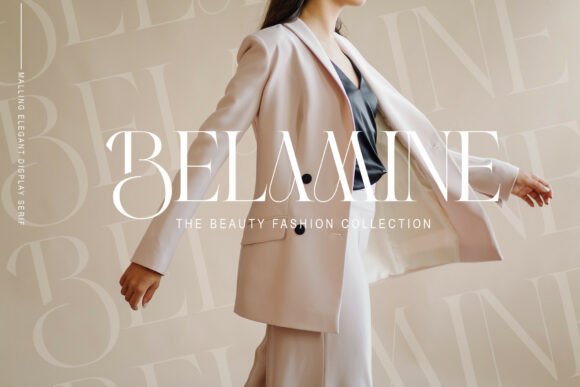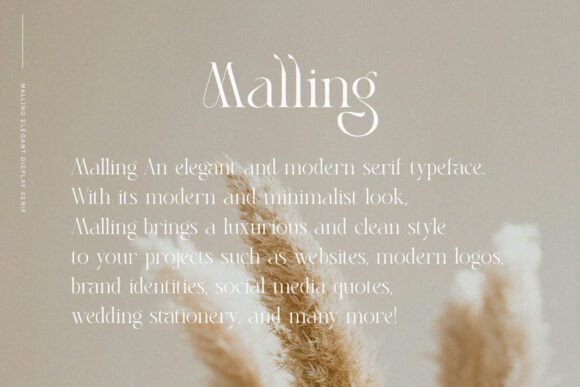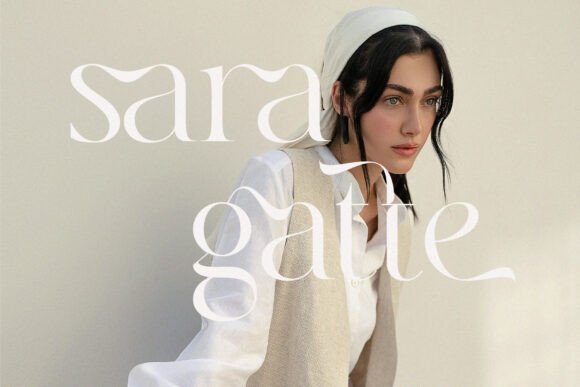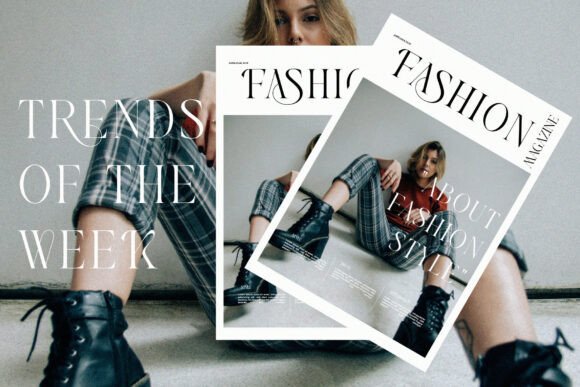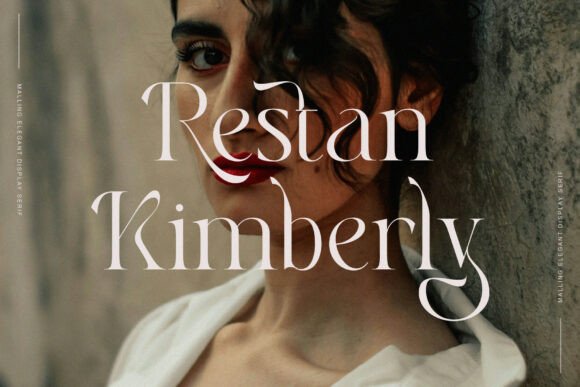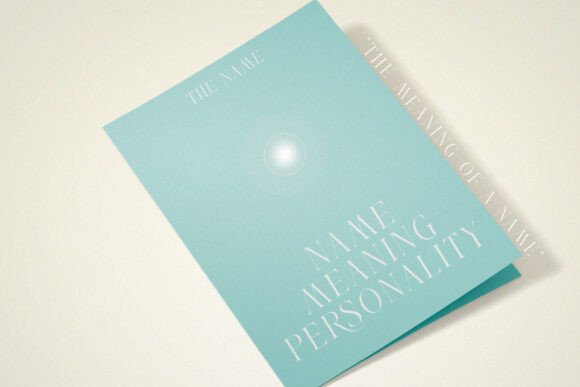
Introduction to Malling Font
Introducing Malling: An elegant and modern serif display.
With its modern and minimalist look, Malling brings a luxurious and clean style to your projects such as websites, modern logos, branding identities, social media quotes, wedding stationery, and more .
Malling Font offers exceptional quality and versatility, making it a valuable addition to your design toolkit. Whether you’re creating for personal projects or commercial use, Malling Font delivers professional results.